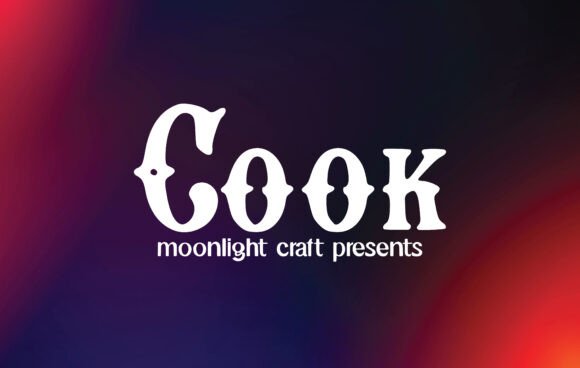
Cook Font: A Slab Serif for Artisan Branding
Testing Cook for Boutique Café Logo Design
When I first opened the brand board for a new artisanal coffee roaster project, I knew that selecting the right typeface would define the entire visual identity, which is why I decided to test Cook as the primary display font. As a graphic designer who frequently works with hospitality clients, I am always searching for Slab Serif Fonts that balance warmth with structural integrity, and this specific typeface immediately caught my eye during my initial research phase. The project required a logo that felt established yet approachable, avoiding the overly rustic clichés often seen in coffee branding while still communicating craftsmanship. Cook is a lovely and beautiful font, and seeing it rendered in large scale on my artboard confirmed that it possessed the unique character needed to anchor a premium café identity without feeling cold or corporate.
The true test came when I began manipulating the letterforms for the logotype. Unlike many digital-first slab serifs that can feel rigid, Cook offered a surprising amount of organic flow within its sturdy serifs, making it an excellent candidate for custom wordmarks. I found myself adjusting the tracking slightly tighter than usual to create a cohesive block of text that felt solid and dependable, much like the product the client sells. This font has the potential to take your creative ideas to the highest level because it doesn't just sit on the page; it commands attention while retaining a sense of handcrafted elegance. For designers working on similar hospitality projects, this typeface serves as a fantastic starting point for building a logo that feels both modern and timeless.
Using Cook for Packaging Labels and Menus
Moving from digital mockups to physical print assets, I integrated Cook into the packaging design system to see how this Slab Serif performs on textured paper and product labels. In the world of retail and food packaging, legibility at small sizes is non-negotiable, and many decorative Fonts fail when scaled down for ingredient lists or side panel copy. However, because Cook is a lovely and beautiful font with robust stroke contrast, it maintained exceptional clarity even when embossed on kraft paper bags or printed on matte sticker labels. The weight distribution in the characters ensures that ink spread does not muddy the details, which is a critical technical consideration for any commercial packaging project.
For the menu design, I utilized Cook strictly for section headers and signature drink names, allowing the font’s personality to guide the customer’s eye through the hierarchy. It is the best choice for creating eye catching logos, branding and quotes, but it also excels as a functional navigation tool in editorial layouts. The distinct serifs act as visual anchors, helping patrons quickly scan categories like "Espresso," "Pour Over," and "Pastries" without feeling overwhelmed by dense text. When designing for physical touchpoints, this typeface adds a layer of tactile sophistication that elevates the perceived value of the product. My experience testing it on various paper stocks suggests that it pairs exceptionally well with uncoated, natural materials, reinforcing the artisanal narrative of the brand.
Cook Typography for Social Media Quotes and Stories
Digital consistency is just as important as print presence, so I incorporated Cook into the social media templates to evaluate its performance across Instagram posts and story graphics. As one of the more versatile Slab Serif Fonts available for digital creators, it translates beautifully to screen-based media where bold typography drives engagement. This font has the potential to take your creative ideas to the highest level specifically in content marketing, where stopping the scroll is the primary objective. I created a series of quote cards featuring daily brewing tips and customer testimonials, and the font’s inherent warmth made the text feel personal rather than automated.
One practical observation from this digital testing phase was how well Cook handles negative space. When setting short, punchy headlines for social ads, the open counters and balanced proportions prevent the text from feeling heavy or cluttered on mobile screens. It is the best choice for creating eye catching logos, branding and quotes because it retains its structural beauty even when animated or overlaid on busy photography. For fellow designers managing social content calendars, I recommend using this typeface for high-impact statements while reserving lighter sans serifs for body captions. This combination ensures accessibility and readability while maintaining a strong, recognizable brand voice across all digital platforms.
Pairing Cook with Sans Serif Fonts for Web Headers
A successful brand identity relies heavily on effective font pairing, and I found that Cook creates a stunning contrast when matched with clean geometric sans serif Fonts for website design. While Cook shines as a headline and display face, using it for long-form web copy can be fatiguing for users; instead, I leveraged its strength in hero sections and navigation menus. Cook is a lovely and beautiful font that brings necessary personality to minimalist web layouts, preventing the site from feeling sterile or generic. The slab structure provides a confident frame for product photography and calls-to-action, guiding user behavior through typographic hierarchy.
During the web design process, I tested various weights and optical sizing to ensure the transition between the display font and the body text felt seamless. Cook has the potential to take your creative ideas to the highest level when used strategically as an accent element rather than a workhorse. For example, using it for pull quotes, testimonial blocks, and footer titles created a rhythmic visual cadence throughout the scrolling experience. It is the best choice for creating eye catching logos, branding and quotes, but its utility extends deeply into UI design when paired thoughtfully. Designers should verify licensing for web use and test rendering across different browsers, but in my experience, this typeface renders crisply and maintains its charm on everything from retina displays to standard laptops.
Evaluating Cook for Commercial Brand Identity Systems
Before finalizing the project deliverables, I conducted a comprehensive audit of Cook to ensure it could sustain a full-scale commercial brand identity system. Investing in premium Slab Serif Fonts requires confidence in their versatility, and this typeface proved capable of adapting to diverse applications from business cards to storefront signage. This font has the potential to take your creative ideas to the highest level because it avoids being pigeonholed into a single aesthetic; it is equally at home on a luxury skincare label as it is on a vintage-inspired poster. The consistent baseline and x-height make it easy to align with other typographic elements in a complex grid system, which is essential for maintaining professional standards in client work.